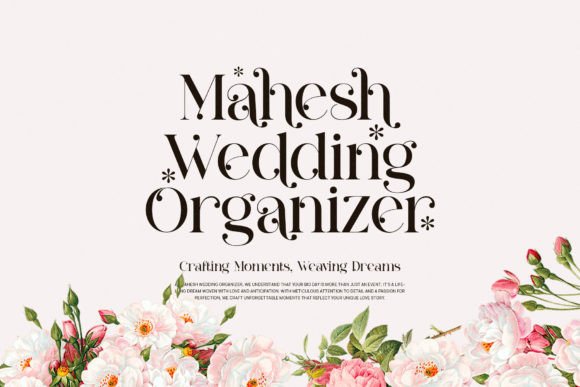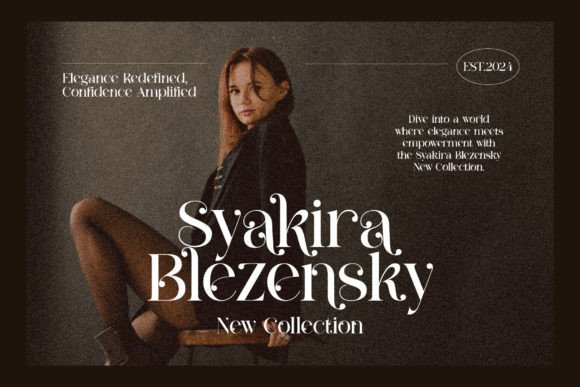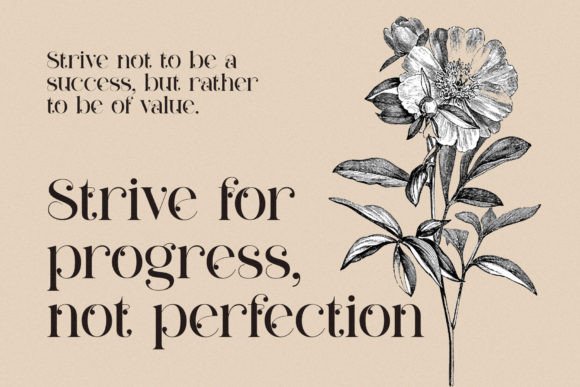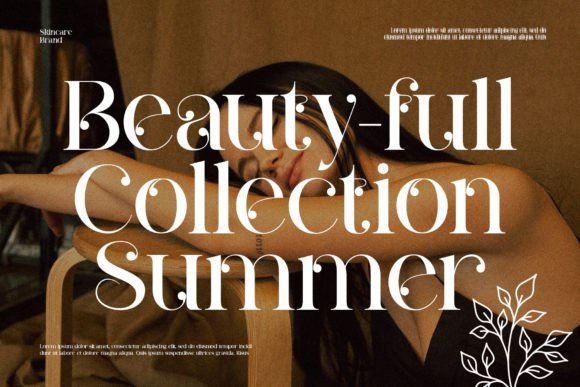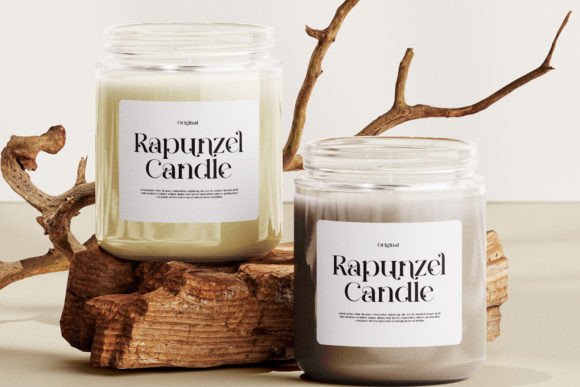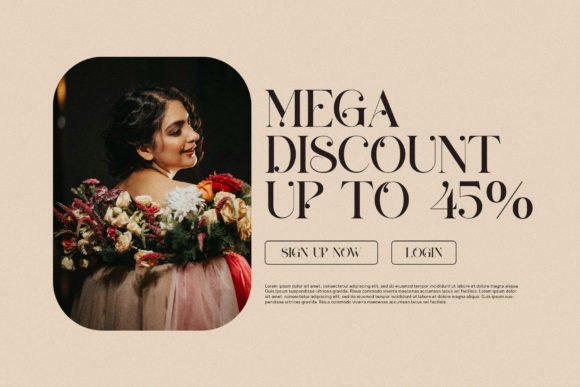
Introduction to Slafiko Font
Have you ever stared at a blank canvas, feeling the weight of creativity on your shoulders? The cursor blinks, taunting you to start, but your mind is a jumble of ideas and fonts. That’s when I found solace in the Slafiko Font – a beautiful, elegant serif font that adds a touch of sophistication to any design project.
As designers, we’re always on the lookout for the perfect design resource to elevate our creative projects. Whether it’s a logo, brochure, or website, the right font can make all the difference. And that’s where the Slafiko Font shines – its delicate yet balanced look makes it perfect for designers who want to add a touch of high-quality elegance to their work.
Key Features of Slafiko Font
- Unique, modern design with a transparent background, perfect for adding visual interest to your designs
Honest Review: Slafiko Font
I recently had the chance to work with the Slafiko Font on a creative project, and I must say it was a pleasant surprise. This font is a great design resource for anyone looking to add a unique touch to their work.
What works well: ✨ The Slafiko Font is highly customizable, making it perfect for projects that require a high level of flexibility. Its transparent background allows for seamless integration with other design elements, giving you more creative freedom. The font also comes in multiple weights, making it suitable for a wide range of applications.
Overall, I’m impressed with the quality of the Slafiko Font. It’s a great addition to any designer’s toolkit, and its free download makes it accessible to designers of all levels. If you’re looking for a high-quality font to enhance your creative project, I’d definitely recommend giving the Slafiko Font a try.
Key features:
- Multiple weights available
- Simple design may not be suitable for large-scale designs
Tips for Getting the Most Out of Slafiko Font
For a high-quality design, use the Slafiko Font on a transparent background to create a clean and modern look. This design resource is perfect for creative projects that require a unique and eye-catching font.
The Slafiko Font is ideal for use in logos, branding materials, and marketing materials. Its high-quality design makes it a great addition to any creative project. You can also use it for free download and personal use, making it a valuable design resource for designers and non-designers alike.